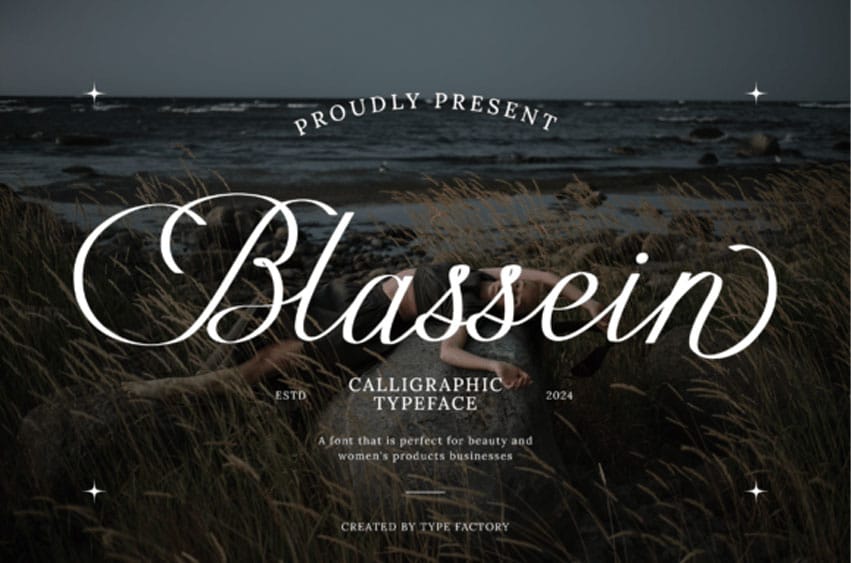
Blassein Font is a calligraphic typeface inspired by classic formal script lettering. It features flowing strokes, refined curves, and expressive swashes that create an elegant and graceful typographic rhythm.
The typeface includes uppercase, lowercase, numerals, punctuation, stylistic alternates, ligatures, and multilingual support. The detailed entry and exit strokes allow smooth letter connections, making it suitable for formal and decorative compositions.
Blassein works well for wedding invitations, branding projects, beauty packaging, editorial headlines, social media graphics, greeting cards, and logo design that require a sophisticated script appearance.